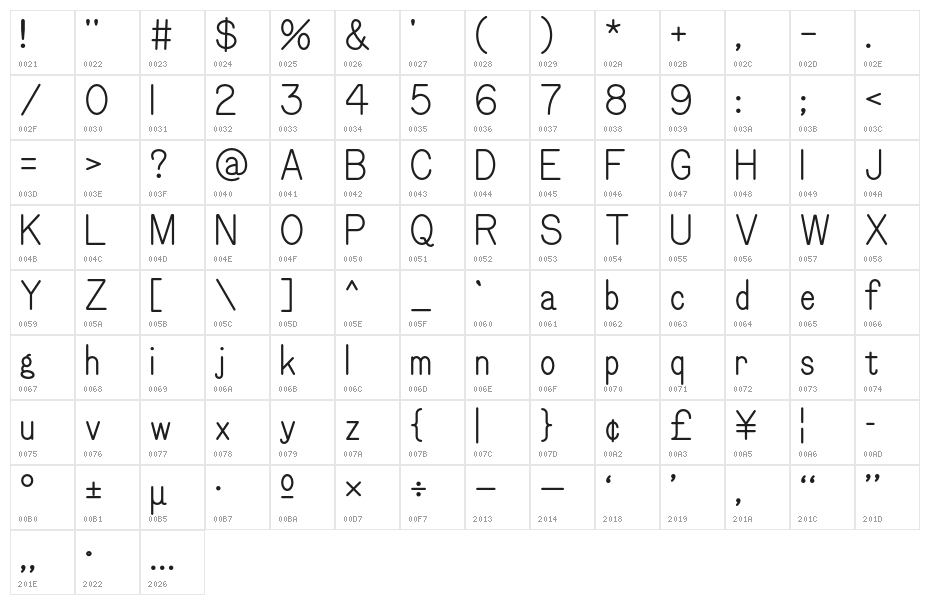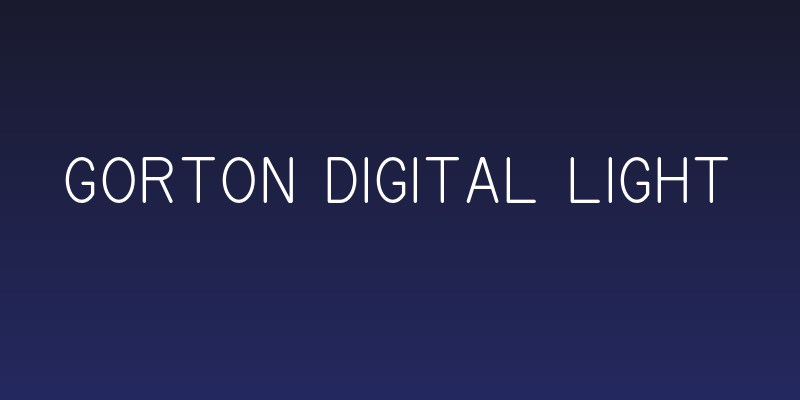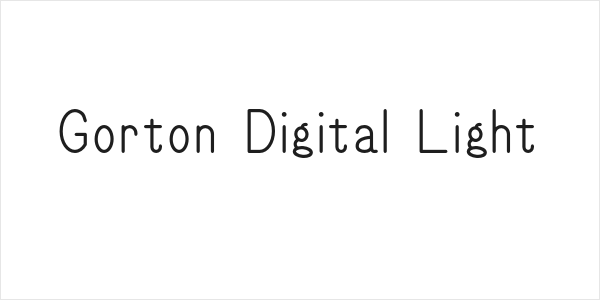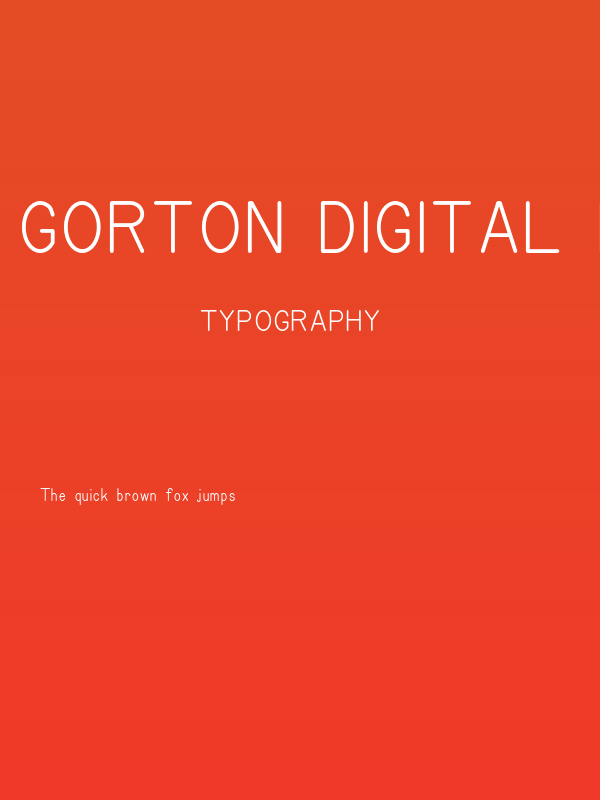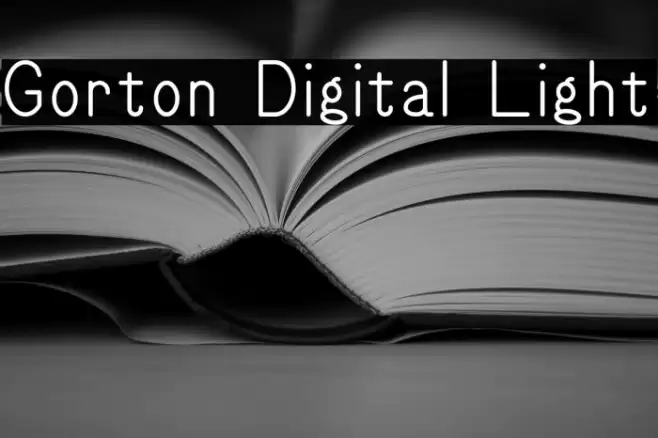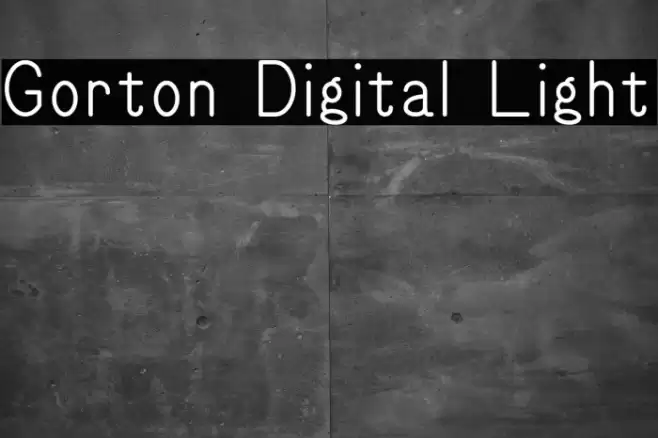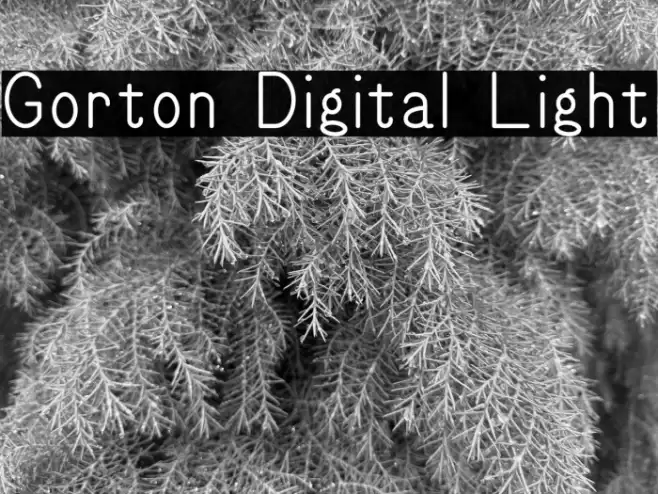
Gorton Digital Light Font
Gorton Digital Light Description
This font features a clean and modern sans-serif design with a light weight. The characters are evenly spaced, providing a balanced and legible appearance. The uppercase letters are tall and slightly narrow, while the lowercase letters maintain a consistent height with rounded edges, giving a friendly and approachable feel. The numerals are clear and distinct, making them easily readable. Special characters are well-defined, maintaining the overall aesthetic of simplicity and clarity. This font is versatile, suitable for both digital and print media, offering a contemporary look that is both professional and stylish.
A revival of a 20th century interwar typeface. In the early- to mid-20th century, the George Gorton Machine Company made engraving machines (among other machines).
| Proposed Projects | Ideal for web design, corporate branding, digital interfaces, and minimalist print materials. |